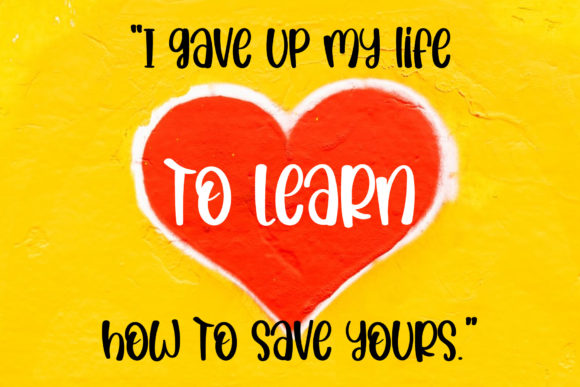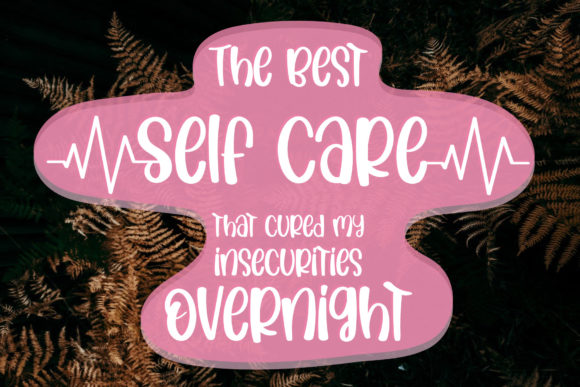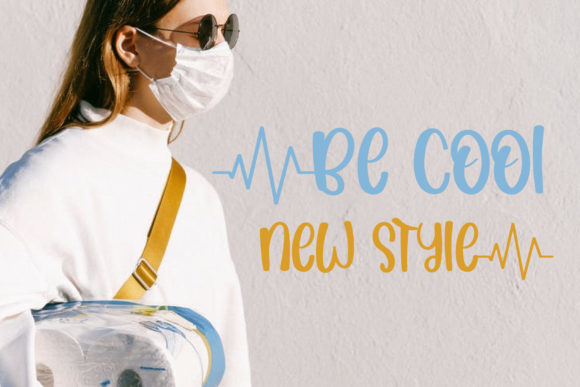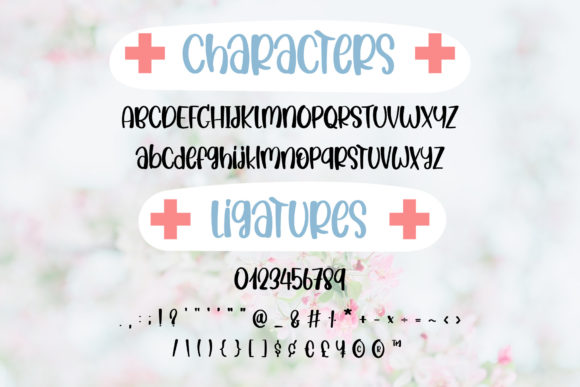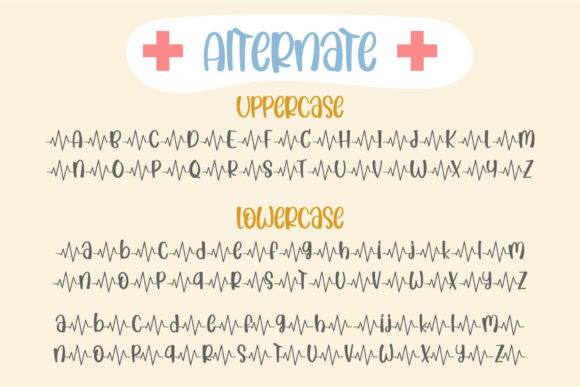
Introducing First Aid Kit Font: A Unique Display Font for Medicine and More
Are you a designer or crafter looking for a font that adds a touch of personality to your medicine-related creations? Look no further than the First Aid Kit Font. This cool and uniquely designed display font is perfect for adding an outside-the-box touch to your projects. In this article, we’ll explore the features and benefits of the First Aid Kit Font and how it can elevate your designs.
What is First Aid Kit Font?
The First Aid Kit Font is a specially designed display font that is perfect for medicine-related creations, such as posters, brochures, and packaging. The font features a unique and playful design that is sure to grab attention. Its distinctive style makes it ideal for use in a variety of applications, from medical branding to craft projects.
Key Features of First Aid Kit Font
- Unique Design: The First Aid Kit Font boasts a one-of-a-kind design that sets it apart from other fonts. Its playful and creative style is sure to add a touch of personality to your designs.
- Versatile: The First Aid Kit Font can be used for a wide range of applications, from medicine-related creations to craft projects and more.
Benefits of Using First Aid Kit Font
So, why choose the First Aid Kit Font for your designs? Here are just a few benefits of using this unique font:
- Adds Personality: The First Aid Kit Font adds a touch of personality to your designs, setting them apart from more traditional fonts.
- Versatile: The font can be used for a wide range of applications, making it a great addition to any designer’s toolkit.
Who Can Use First Aid Kit Font?
The First Aid Kit Font is perfect for a variety of designers and crafters, including:
- Graphic Designers: Graphic designers can use the First Aid Kit Font to add a touch of personality to their designs, from posters and brochures to packaging and branding.
- Crafters: Crafters can use the font to add a unique touch to their craft projects, such as scrapbooking, card making, and more.
- Medical Professionals: Medical professionals can use the font to create eye-catching posters, brochures, and other materials for their medical practices.
Tips for Using First Aid Kit Font
Here are a few tips for using the First Aid Kit Font in your designs:
- Experiment with Different Sizes: The First Aid Kit Font looks great in a variety of sizes, so don’t be afraid to experiment to find the perfect size for your design.
- Pair with Other Fonts: The font pairs well with other fonts, so try pairing it with a more traditional font to create a unique contrast.
- Use the Glyphs and Swashes: The font’s PUA encoding makes it easy to access the glyphs and swashes, so be sure to use them to add a touch of personality to your designs.
The First Aid Kit Font is a unique and versatile display font that is perfect for adding a touch of personality to your medicine-related creations. With its PUA encoding and distinctive design, this font is sure to elevate your designs and set them apart from the rest. Whether you’re a graphic designer, crafter, or medical professional, the First Aid Kit Font is a great addition to your toolkit.